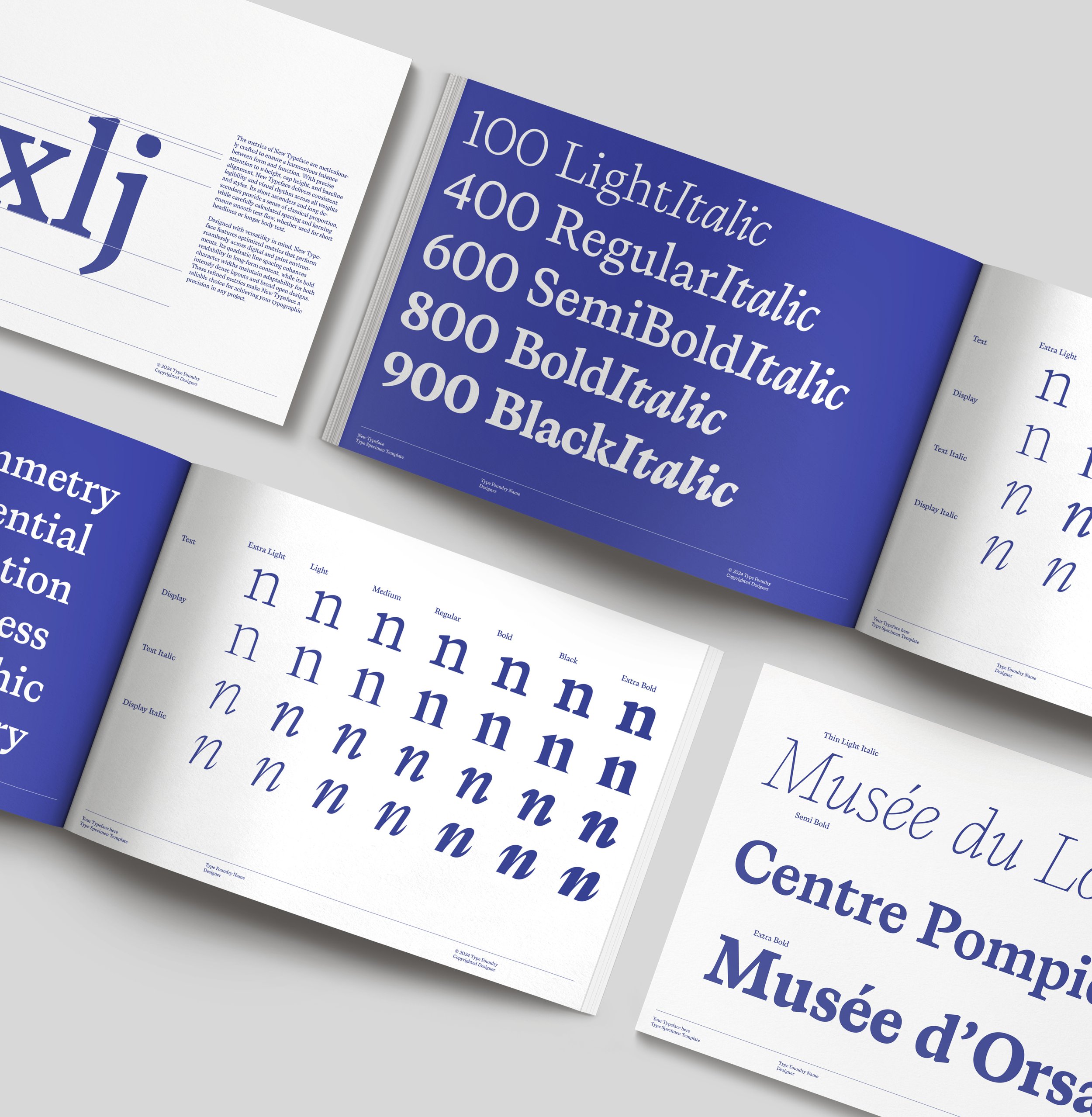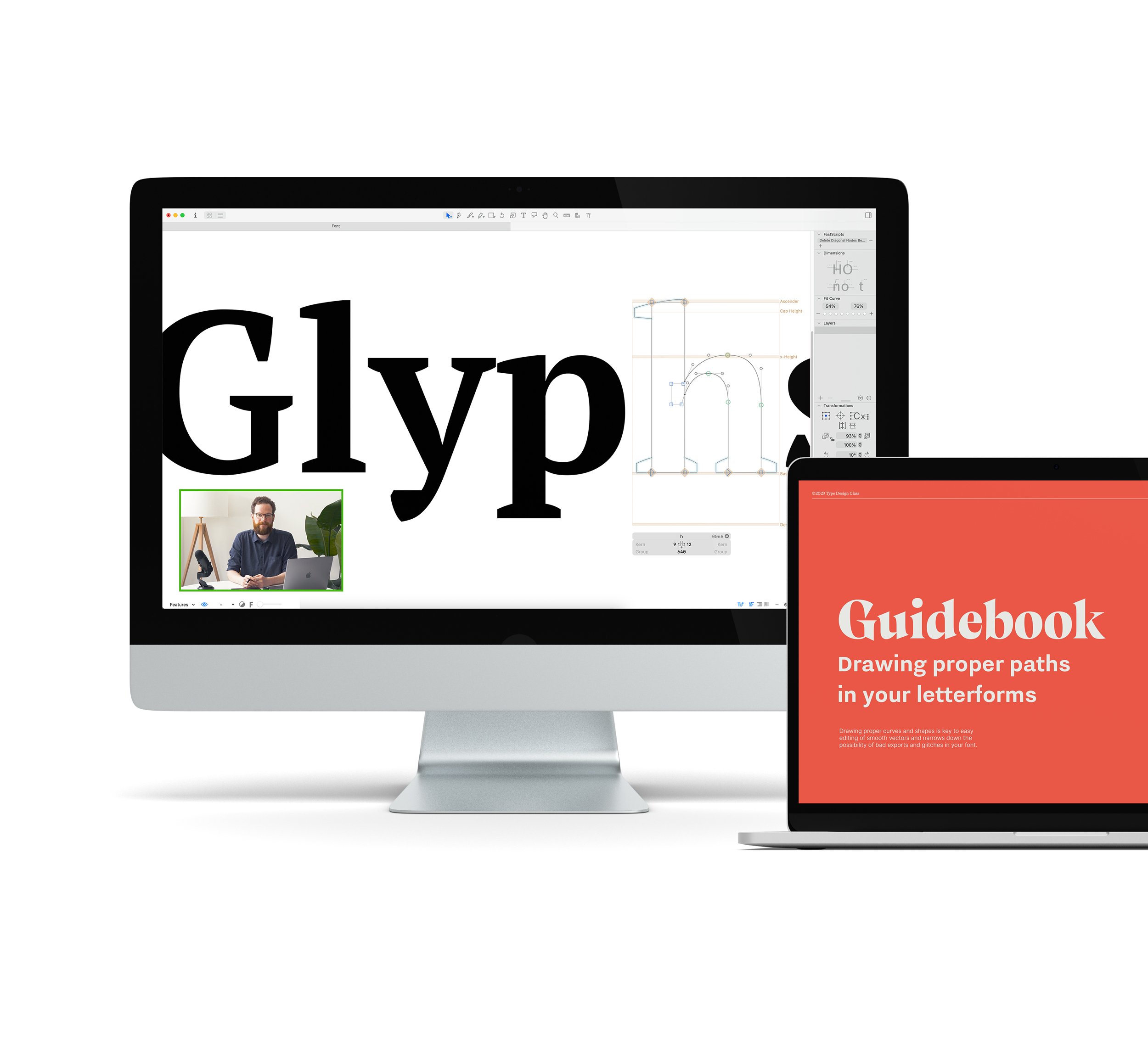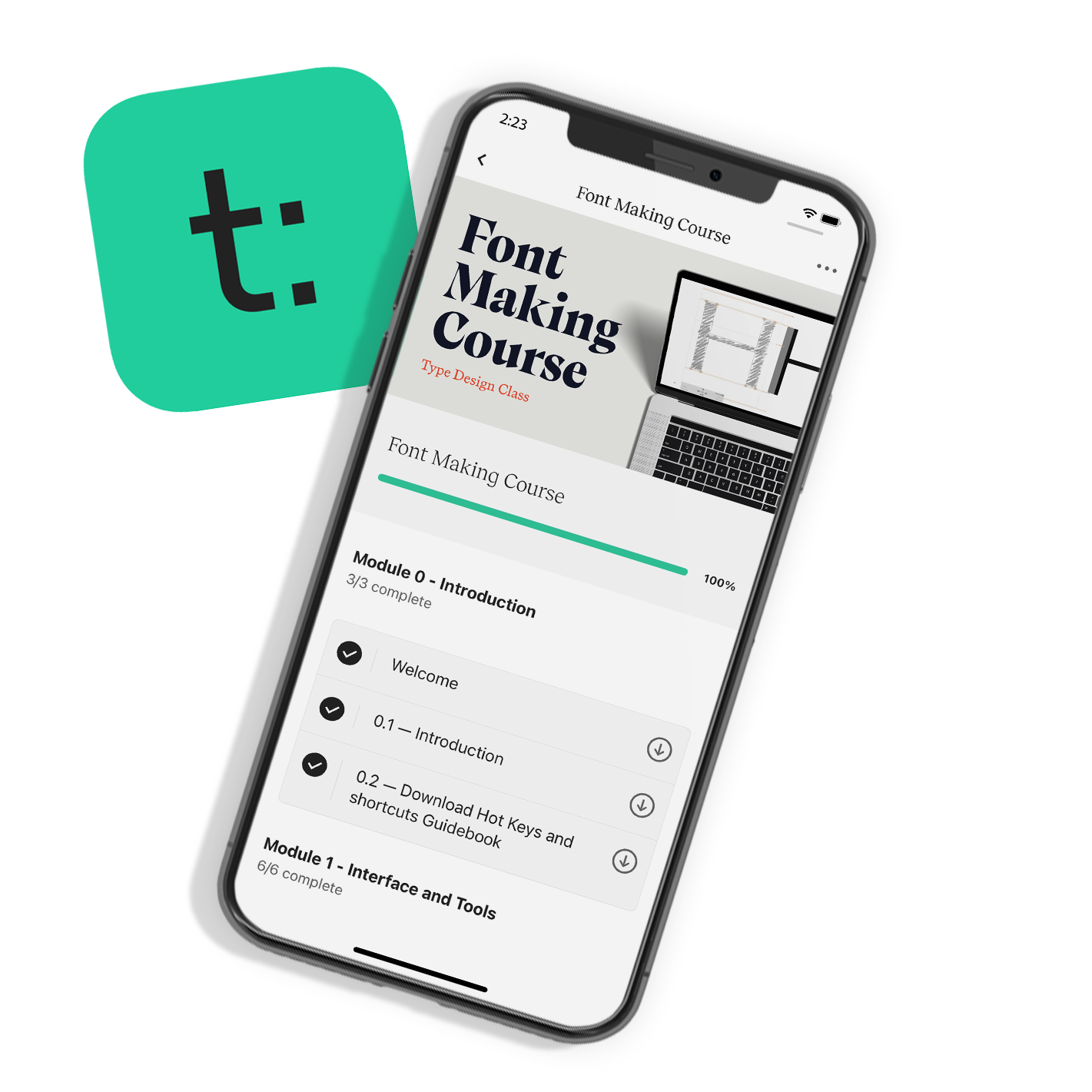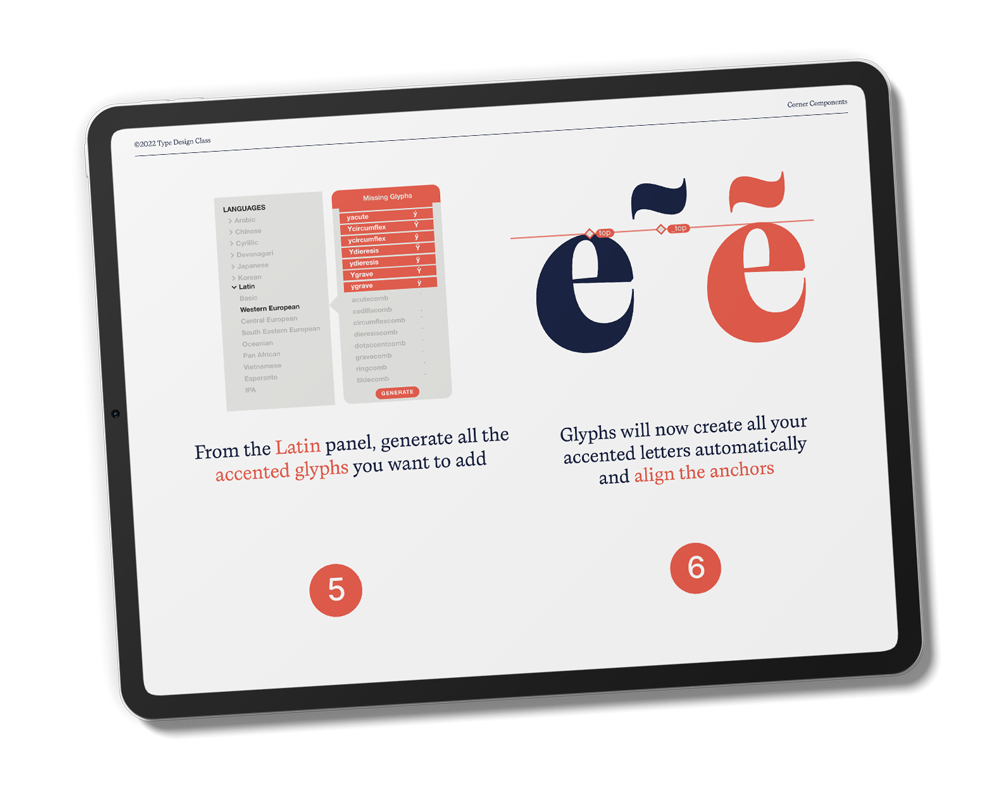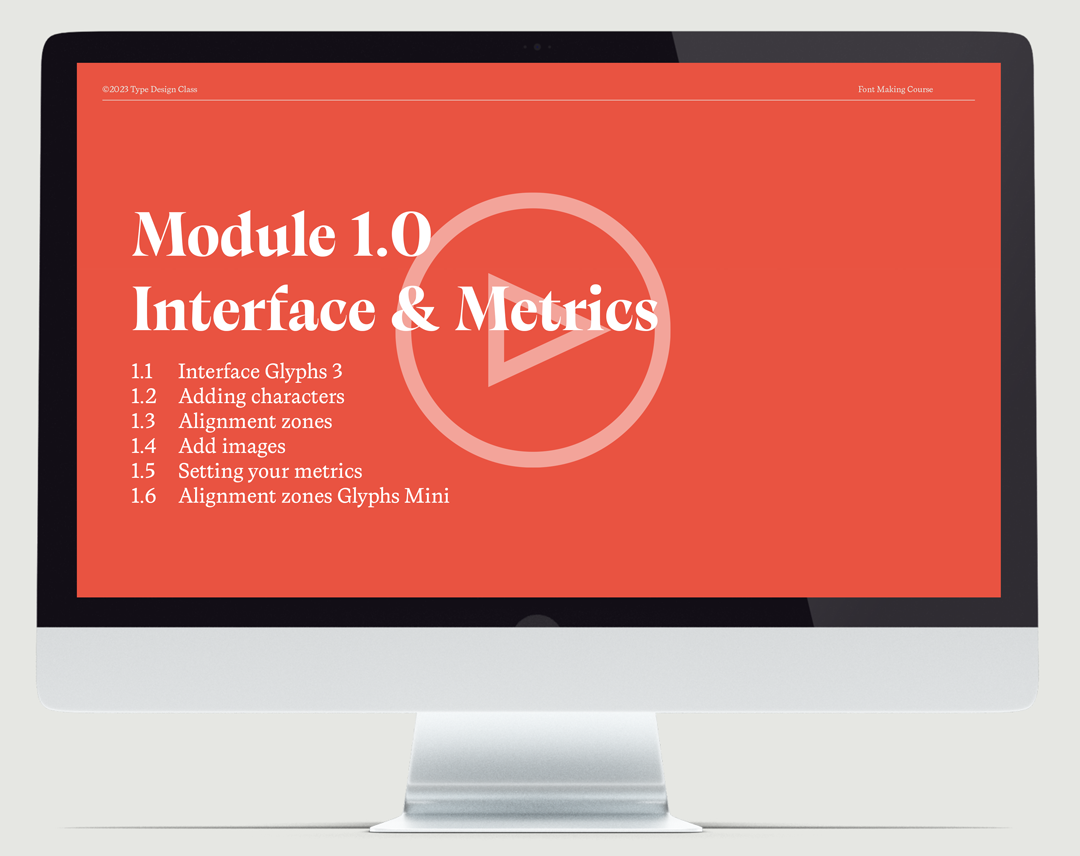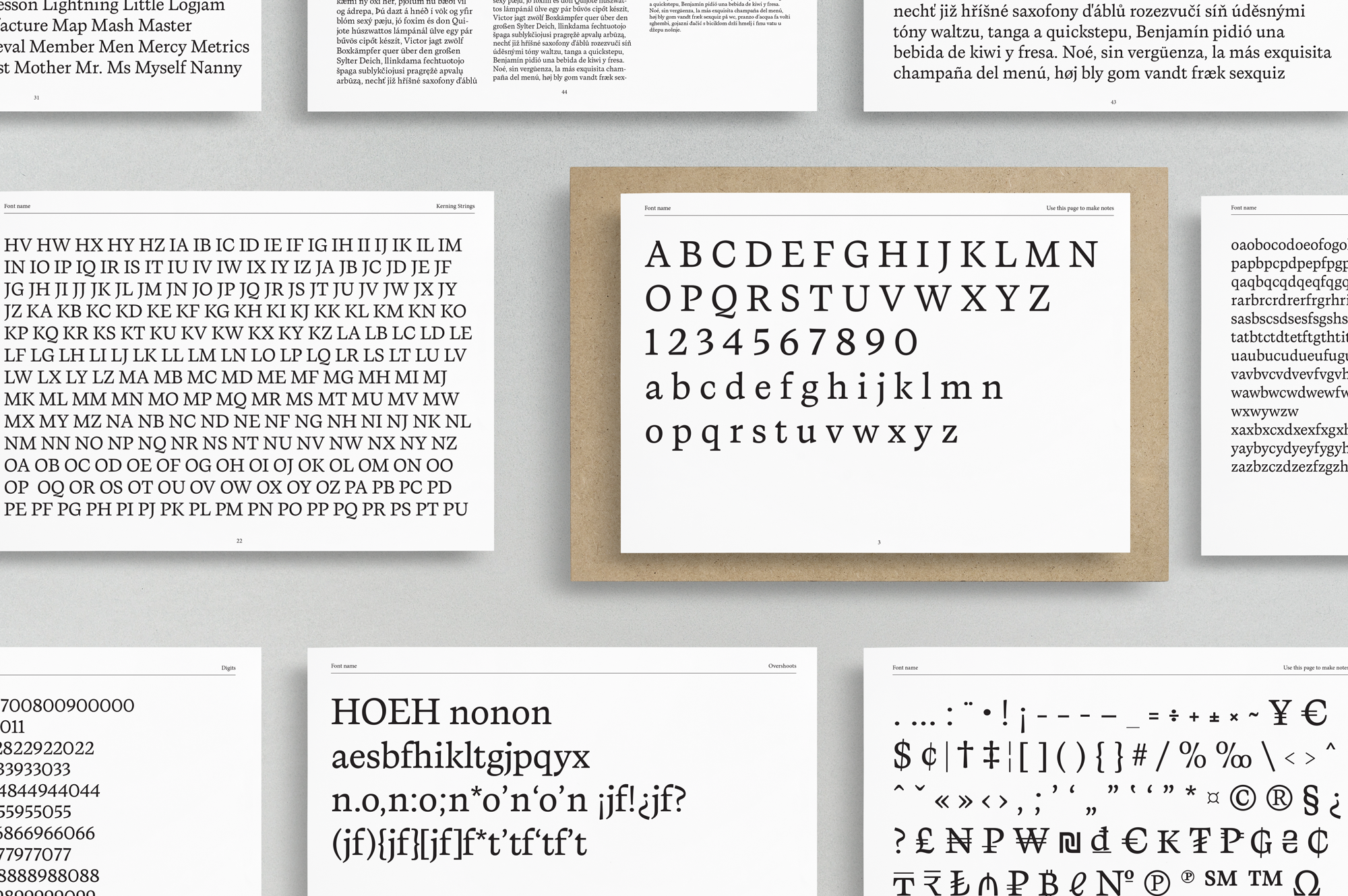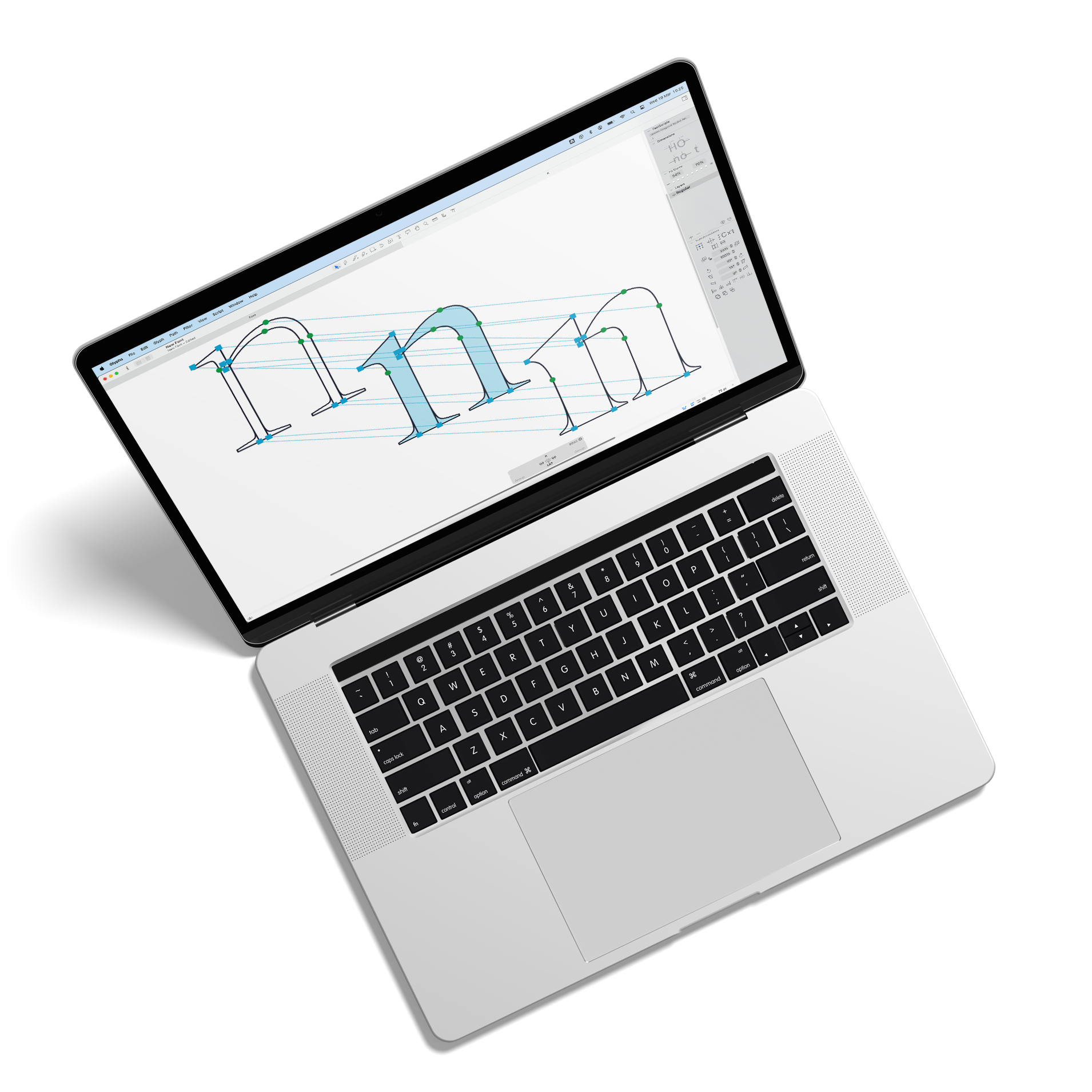
ONLINE VIDEO COURSELearn to make your own fonts, from start to finish
In this online video course that you can take at your own pace, you’ll be given a complete roadmap with all the tools, tips, and tricks you’ll need to create your own multiple weight typefaces.
You’ve been wanting to make fonts for a while. But you find font making software a bit intimidating, or
You’ve tried to draw letters in Adobe Illustrator. But you find it hard to draw smooth curves and how to make your letters feel consistent, or
You’ve made a font before. But don’t feel proud to show it to others, or want to make another one but this time better?
We’ll start off simple with the construction of letterforms from primitive shapes and work our way up to drawing with the pen tool and having full control over our handles and create super smooth curves. After working on the upper- and lowercase of a sans serif font we will add serifs, accents, punctuation, and other special characters. After completing this course you’ll feel comfortable to create your own font with proper spacing and kerning which you can use in your favorite design software.
The breakdown of this course
The course is divided into different modules and guidebooks. We’ll start of simple with an explanation of the Glyphs interface, followed by an introduction to the pen tool, and we’ll work our way to creating a font with serifs, accents, ligatures and other OpenType features. Along the way I’ll share with you all kinds of guidebooks so you can read along to perfect your letterforms, how to work with components, accents and program OpenType features.
If you are stuck with a technique, simply scroll back in time and start over. Still having trouble? Please watch the end of the videos where I’ll explain all common mistakes and errors you might encounter in Glyphs.
Before we get started with drawing our fonts, let’s take a look at our interface and see what all the panels do and how to set up your metrics. I’ll show you a quick and easy way to import a sketch to a website that helps you determine the heights of your upper and lowercase and ascenders and descenders.
If you’re familiar with Adobe Illustrator and the pen tool you’re in for a surprise as Glyphs works a bit different and often much more intuitive. It may take a bit of practice but I’m sure you’ll get the hang of it.
Components can be used in various ways for shapes that are repeating in your font. They are super helpful if you want to add serifs to your letterforms, change the appearance of a line or if you want to change the shape of a repeating shape like the period.
Let’s draw all the uppercase characters A-Z. When drawing your uppercase characters you don’t start with ABC but with the control characters H and O. They are called control characters because they control a lot of the shapes of other characters.
Let’s draw all our lowercase characters a-z. When drawing your lowercase characters you also don’t start with abc but with the control characters n and o. They are called control characters because they control a lot of the shapes of other characters.